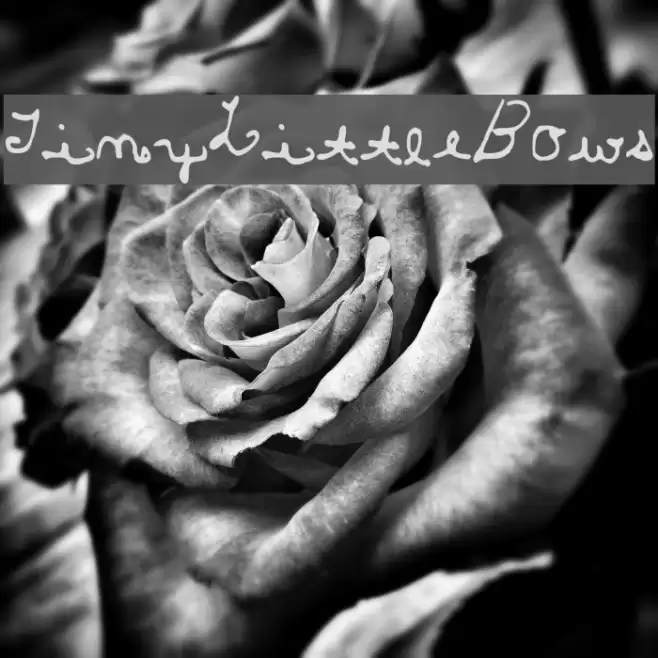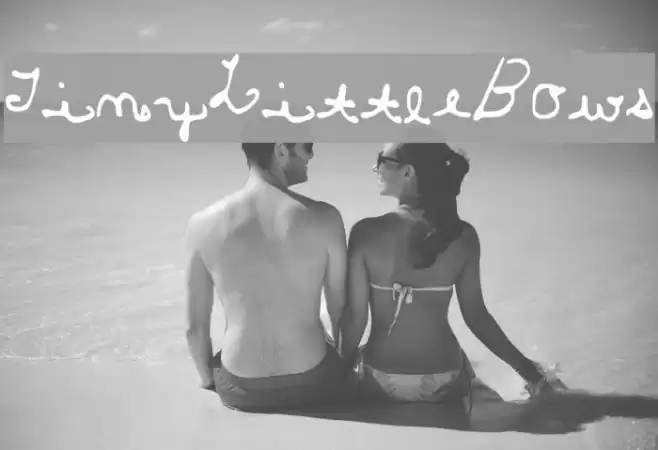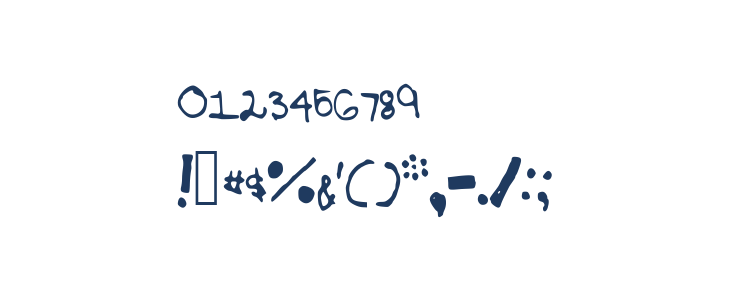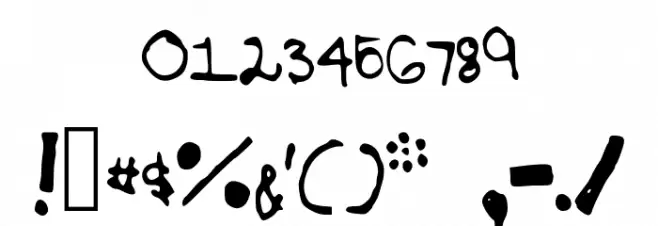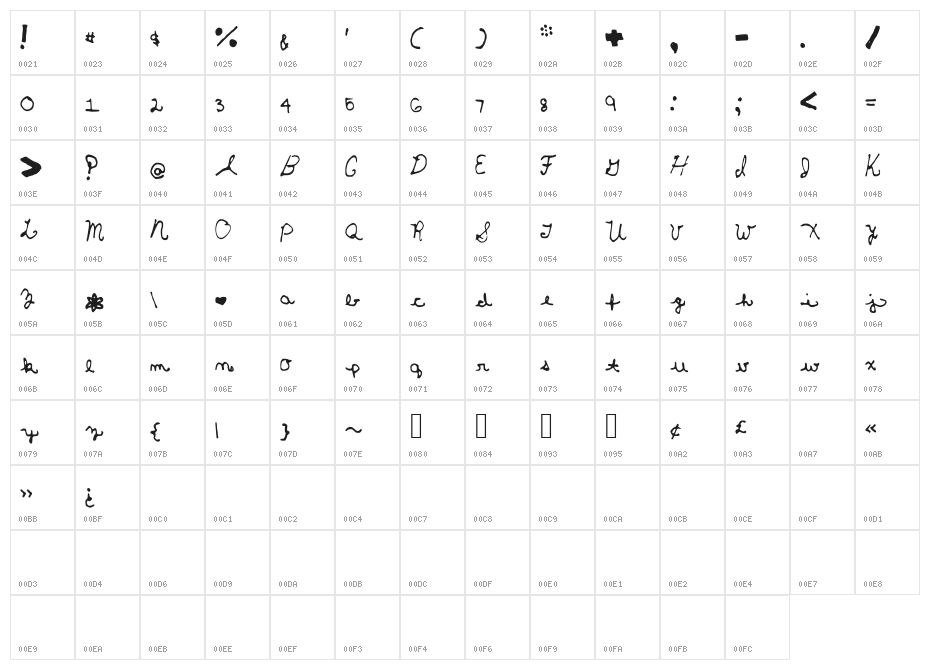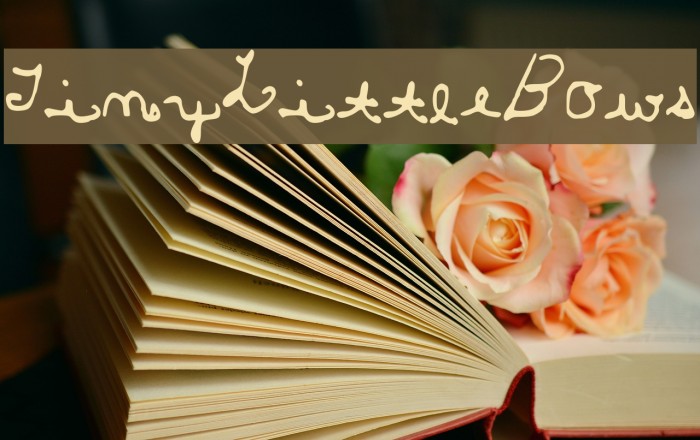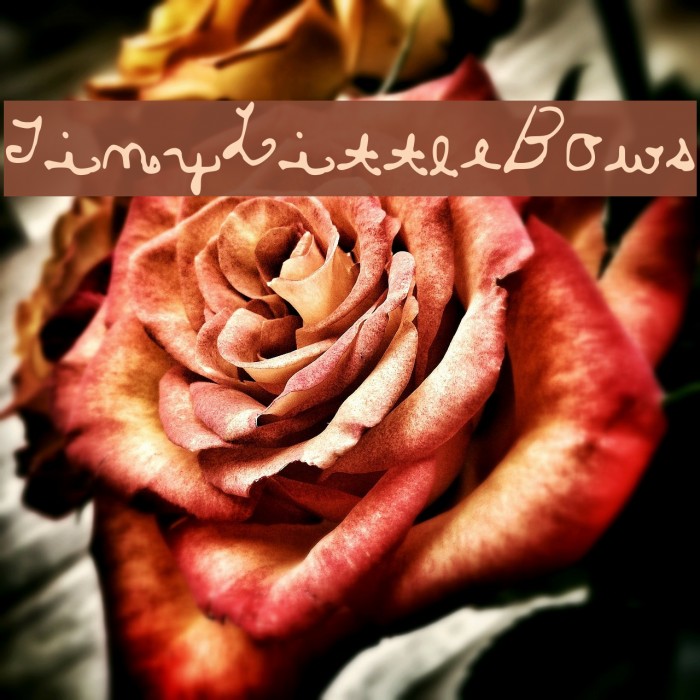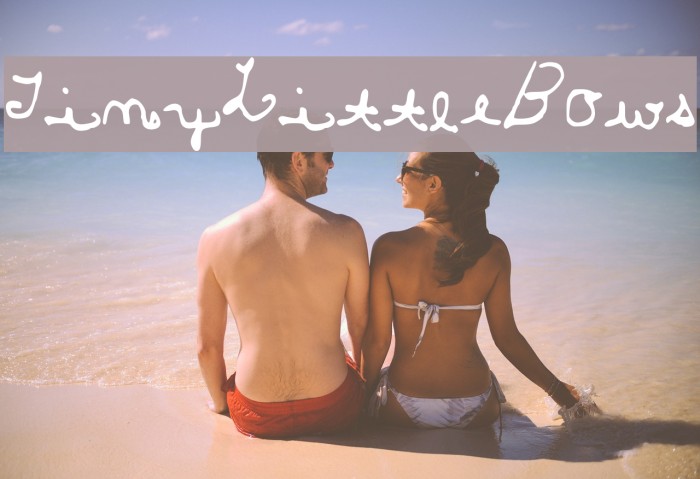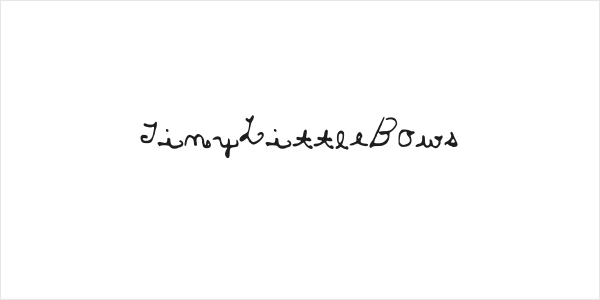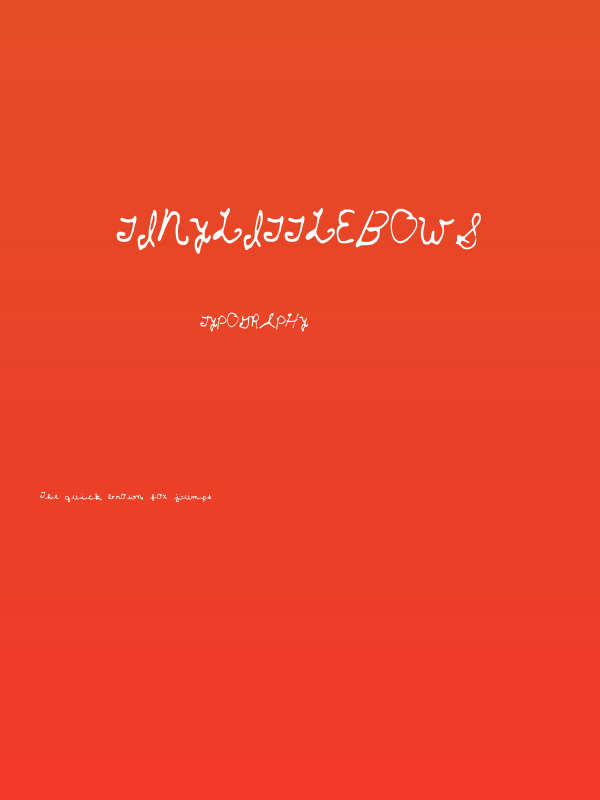
TinyLittleBows Font
TinyLittleBows Description
This font features a playful and whimsical handwritten style, characterized by its uneven strokes and casual appearance. The letters have a unique, almost childlike quality, with varying heights and widths that create a sense of movement and spontaneity. The uppercase letters are bold and expressive, while the lowercase letters maintain a consistent flow, adding to the font's charm. The numerals and special characters follow the same playful aesthetic, making this font ideal for projects that require a touch of creativity and fun. Its organic, free-form style is reminiscent of doodles or sketches, making it perfect for informal and lighthearted designs.
A playful, whimsical handwritten font with uneven strokes and a casual, childlike appearance from Uncategorized fonts.